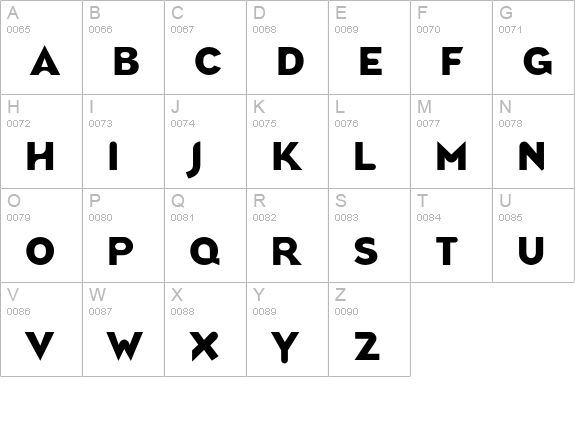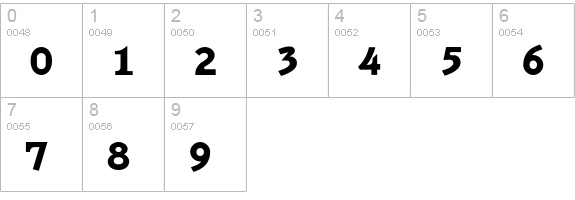
BlindfishBold Font Details
BlindfishBold is a striking and bold font that commands attention with its unique design. This versatile typeface is perfect for making a statement in headlines, logos, posters, and more. With its strong, geometric shapes and clean lines, BlindfishBold exudes confidence and modernity. Best of all, BlindfishBold is available for free download at FontsMarket.com. This means you can easily add this eye-catching font to your design arsenal without breaking the bank. Whether you're a seasoned designer looking to freshen up your projects or a newcomer eager to experiment with different styles, BlindfishBold is a must-have addition to your font collection. Download it today and unleash your creativity with this stunning typeface.